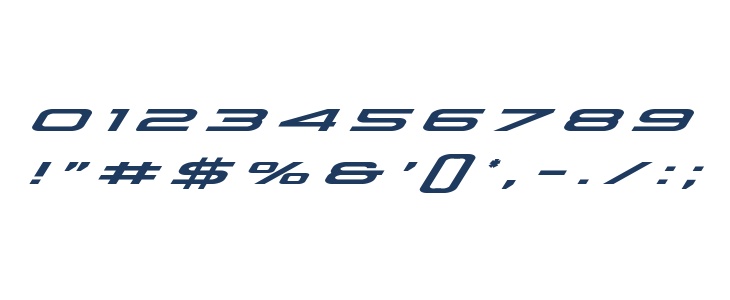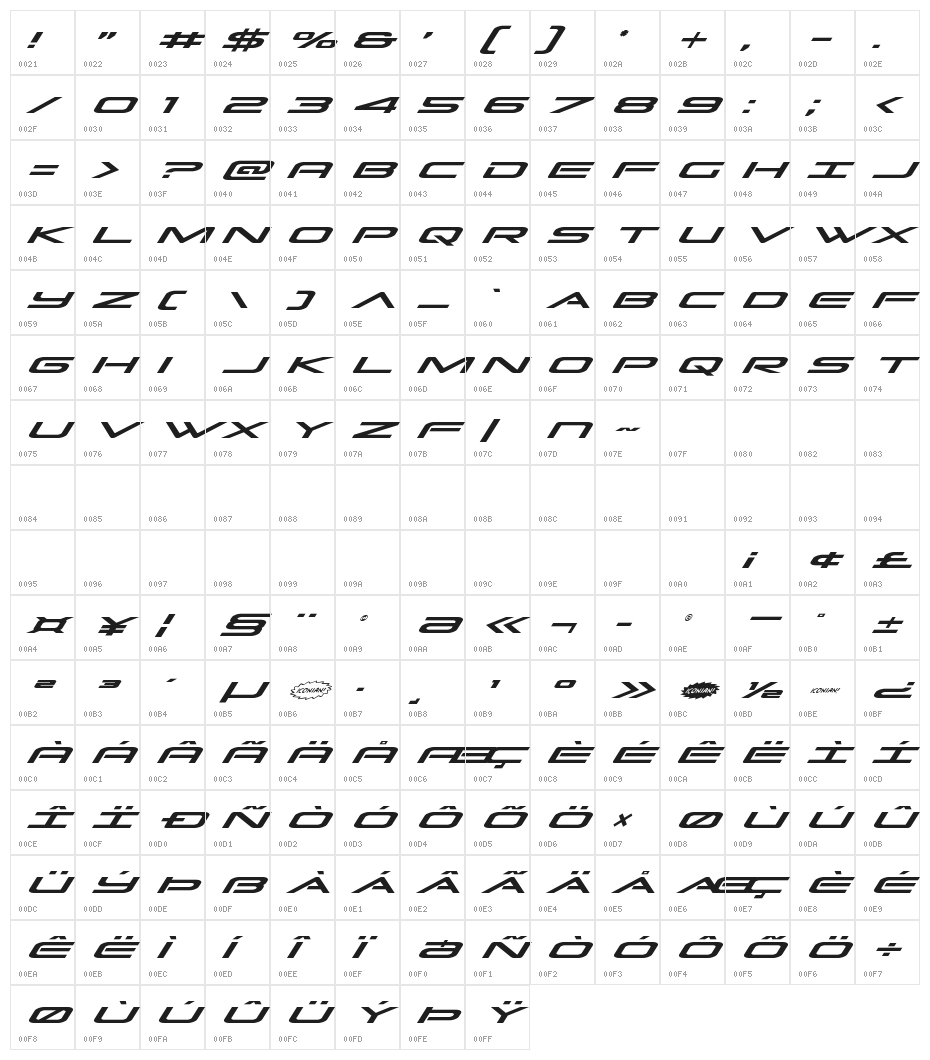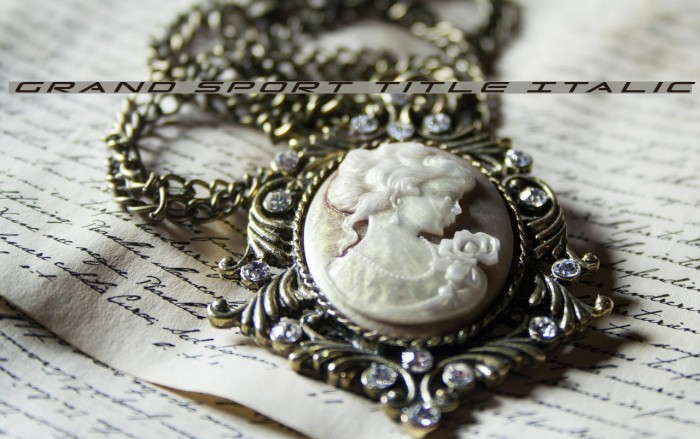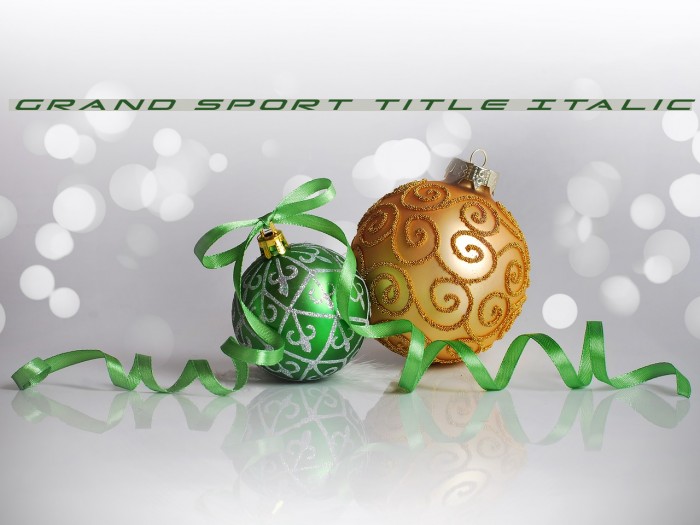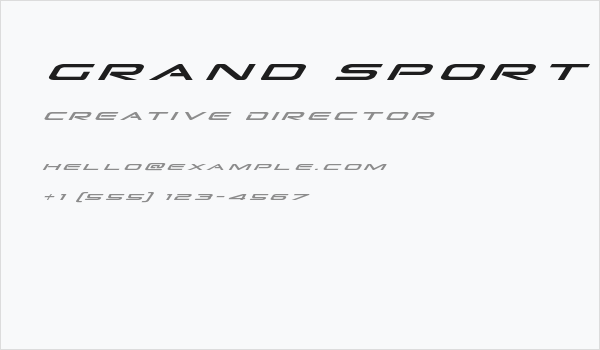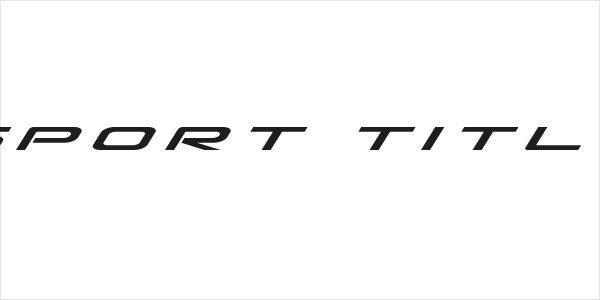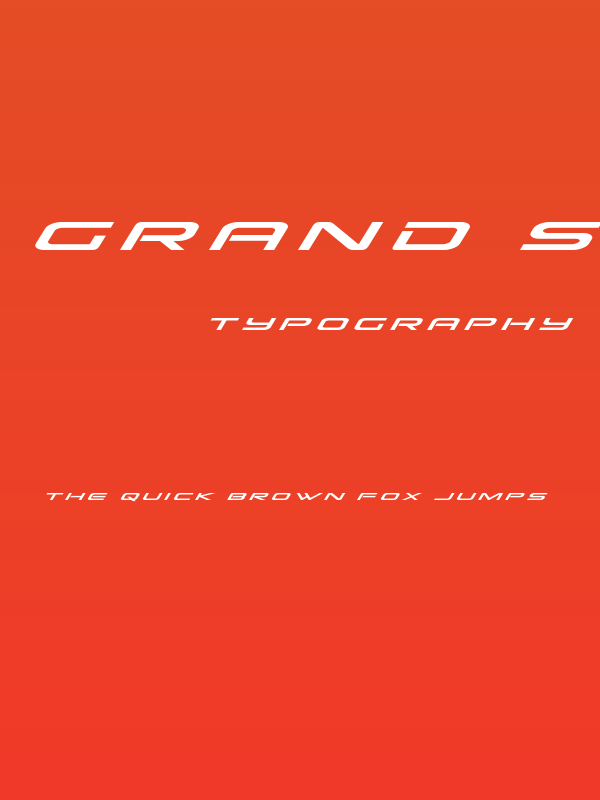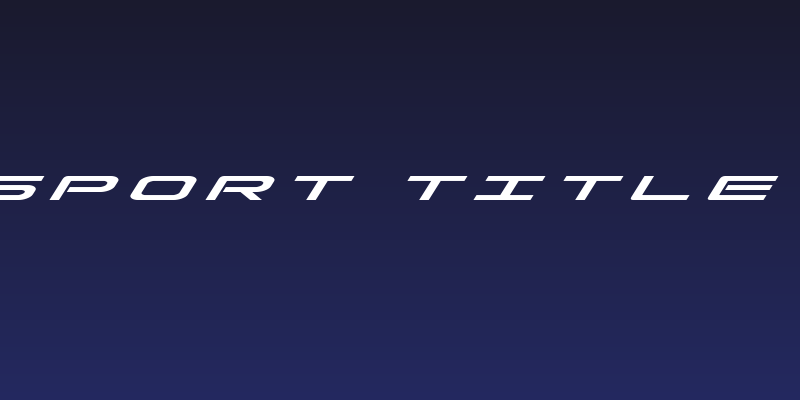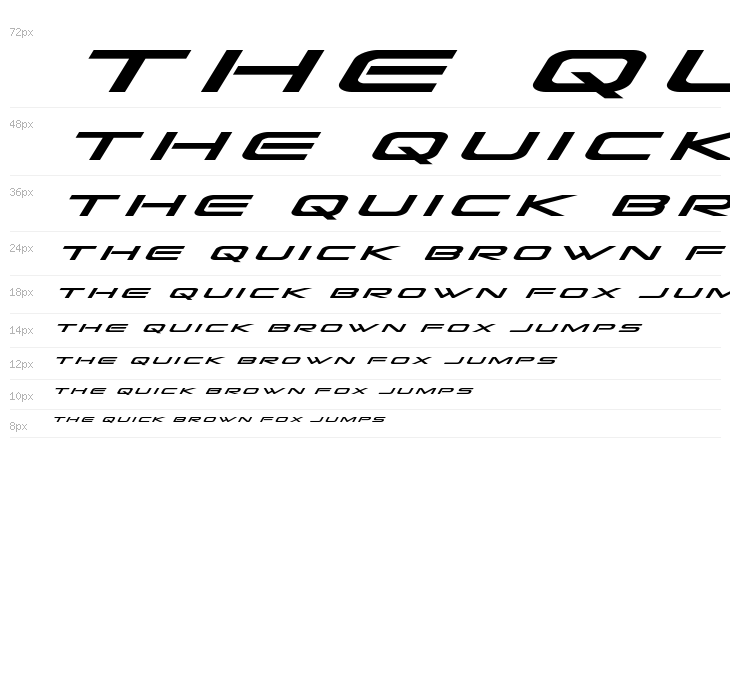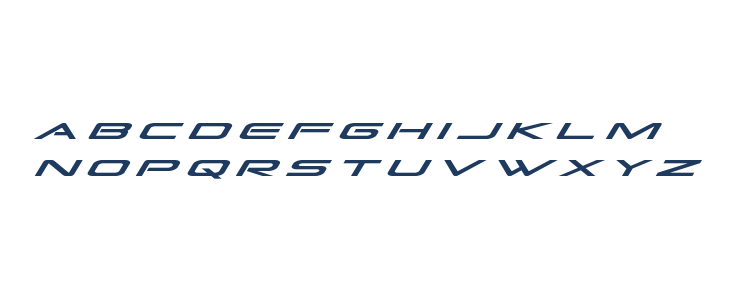
Grand Sport Title Italic Font
Grand Sport Title Italic Description
This font exudes a dynamic and sporty aesthetic, characterized by its italicized and streamlined letterforms. The angular design elements and slanted orientation give it a sense of motion and speed, making it ideal for projects that require a modern and energetic feel. The uppercase and lowercase letters maintain a consistent style, with sharp edges and a slight forward tilt, enhancing its aerodynamic appearance. The numerals and special characters follow the same design principles, ensuring uniformity across all text elements. Its sleek and futuristic look is perfect for automotive branding, sports team logos, or any project that aims to convey a sense of agility and forward-thinking.
| Use Case | Logos, Headlines |
| Proposed Projects | Ideal for automotive branding, sports team logos, and dynamic advertising campaigns. |